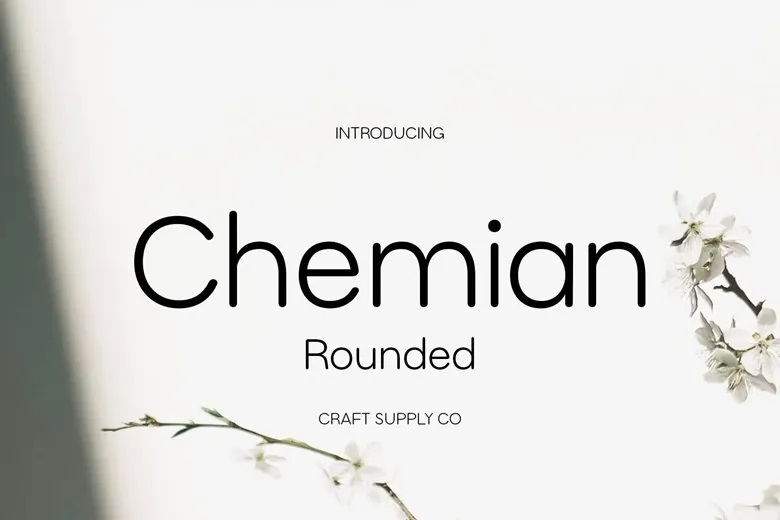
Chemian Rounded Font
Chemian Rounded is a new sans serif typeface that entails clean geometric forms with smooth round corners and edges.. The font is quite minimalistic and therefore looks very professional, yet warm and inviting at the same time which works great.
The rounded off edges are a subtle yet effective way of making the otherwise stringent angular design more appropriate for use in a variety of modern designs.
Chemian Rounded Sans Serif Font